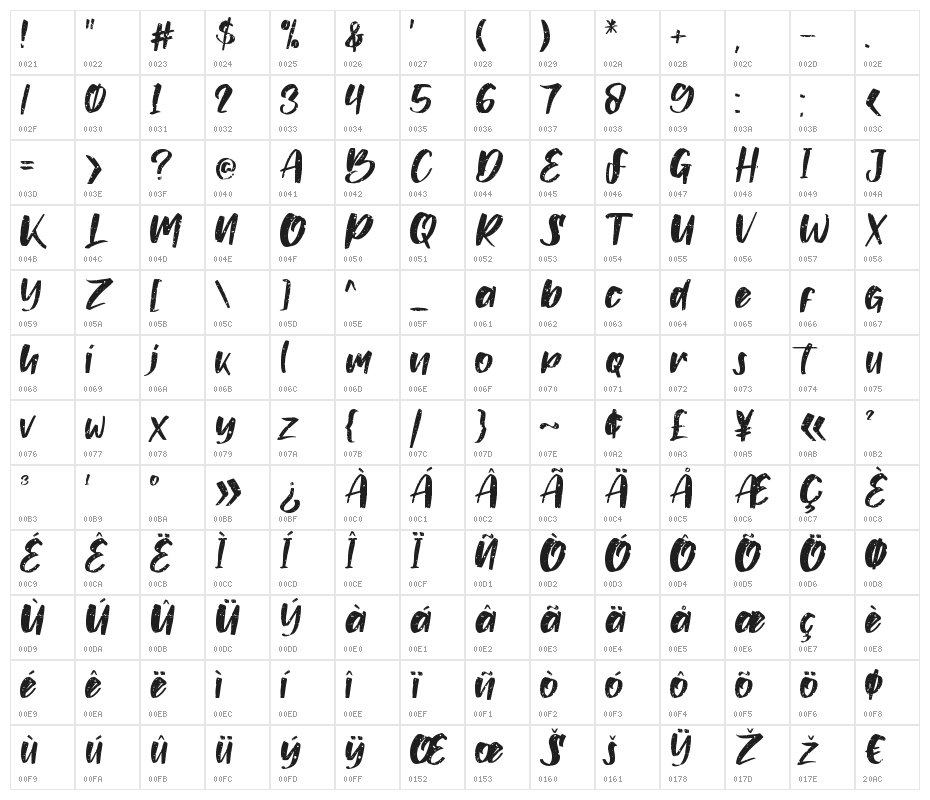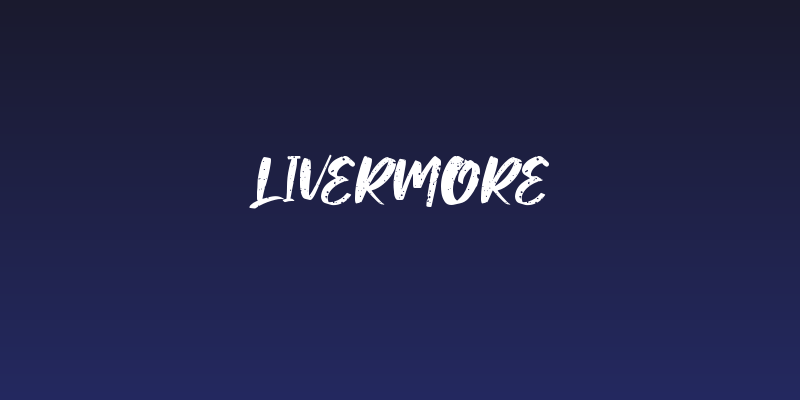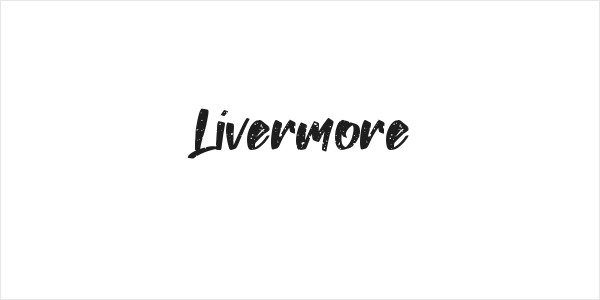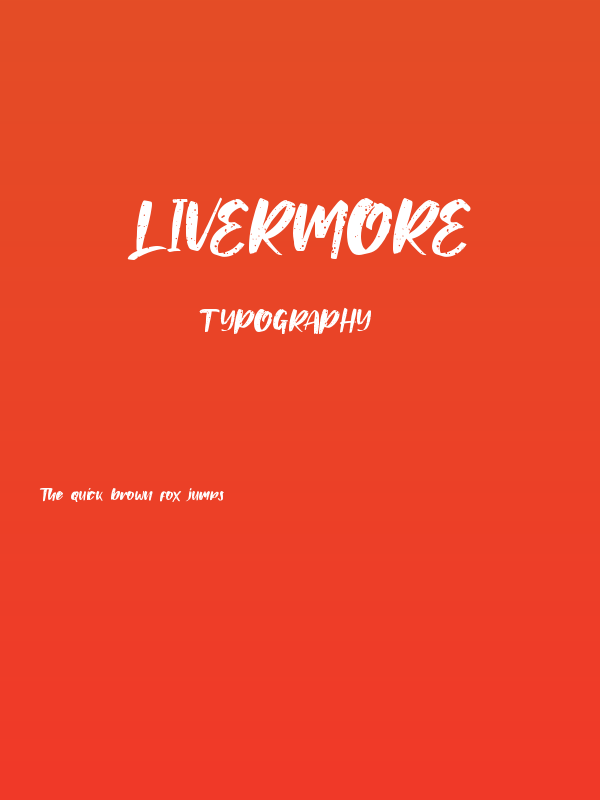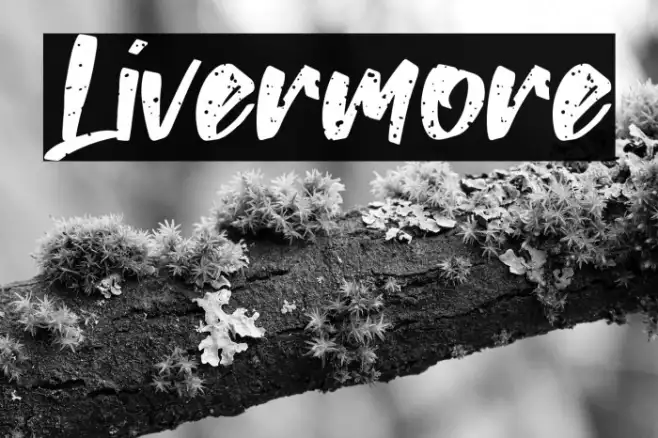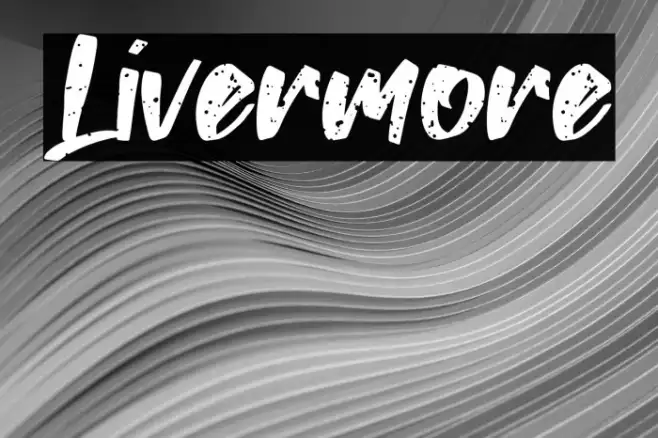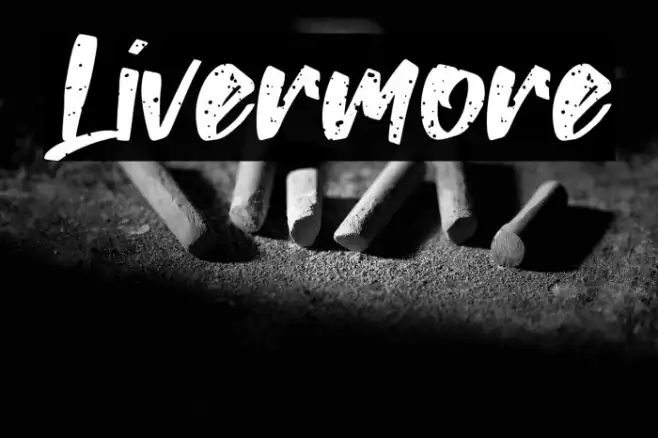
Livermore Font
Livermore Description
This font features a bold, expressive style with a hand-painted appearance. The characters are slightly slanted, adding a dynamic and energetic feel. The texture includes a distressed, grunge effect, giving it a rugged and artistic look. The uppercase and lowercase letters maintain a consistent style, with rounded edges and varying stroke widths. The numbers and special characters follow the same aesthetic, ensuring a cohesive design. This font is ideal for projects that require a bold statement and a creative touch.
| Proposed Projects | Perfect for posters, album covers, branding, and any design needing a bold, artistic flair. |